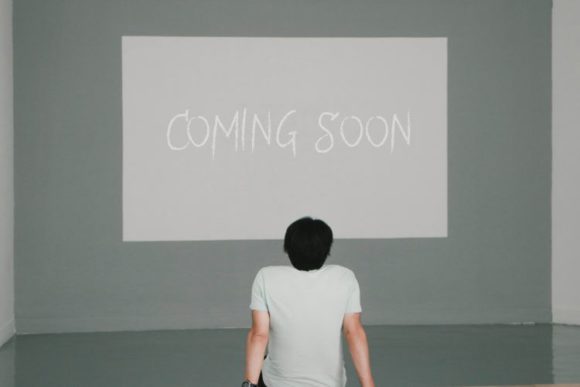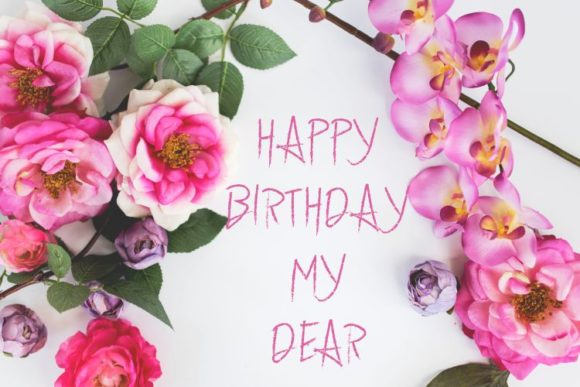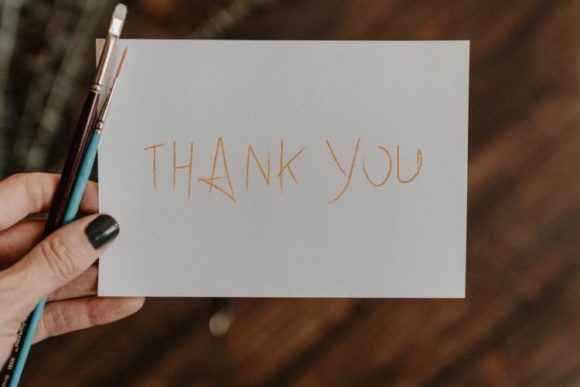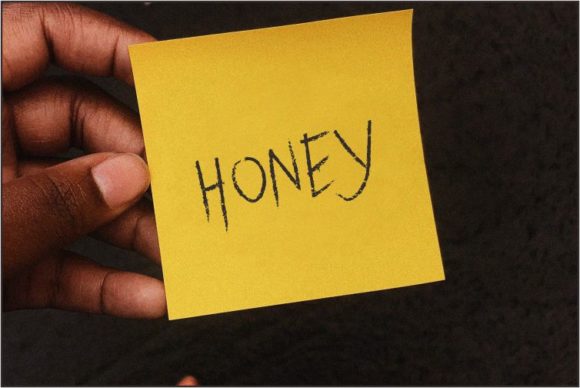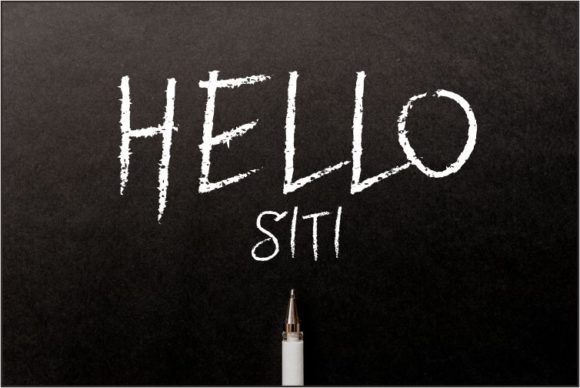
Evor Font: Unleash Your Creativity with a Fun and Authentic Display Font
Are you tired of using the same old fonts in your designs? Look no further than Evor Font, a fun and authentic display font with a rough edge that’s sure to add a unique charm to your projects. In this article, we’ll dive into the world of Evor Font and explore its features, benefits, and uses, inspiring you to get creative with this exciting new font.
The Story Behind Evor Font
Evor Font is a display font designed to stand out from the crowd. Its rough edge gives it a distinctive, handmade feel that’s perfect for designers and crafters looking to add a personal touch to their work. Whether you’re creating a logo, poster, or social media graphic, Evor Font is sure to make your design pop.
What Makes Evor Font Special?
So, what sets Evor Font apart from other fonts? Here are just a few of its unique features:
- Rough Edge: Evor Font’s rough edge gives it a organic, hand-crafted feel that’s perfect for designs that need a bit of texture and personality.
- Fun and Authentic: Evor Font is designed to be fun and playful, making it perfect for designs that need a bit of whimsy and charm.
- Display Font: Evor Font is a display font, meaning it’s designed to be used at larger font sizes, making it perfect for headlines, titles, and other attention-grabbing elements.
Uses for Evor Font
Evor Font is a versatile font that can be used in a variety of design projects, including:
- Logos: Evor Font’s unique charm makes it perfect for logos that need to stand out from the crowd.
- Posters: Evor Font’s bold, eye-catching design makes it perfect for posters and flyers.
- Social Media Graphics: Evor Font’s fun and playful design makes it perfect for social media graphics, such as Instagram posts and Facebook headers.
- Crafting: Evor Font’s handmade feel makes it perfect for crafters who want to add a personal touch to their projects.
Tips for Using Evor Font
Here are a few tips for getting the most out of Evor Font:
- Use it bold: Evor Font is designed to be used at larger font sizes, so don’t be afraid to use it bold and make a statement.
- Experiment with colors: Evor Font’s rough edge gives it a lot of texture, so experiment with different colors and textures to add depth and interest to your design.
- Pair it with other fonts: Evor Font is a great font to pair with other fonts, so experiment with different combinations to find the perfect look for your design.
Evor Font is a fun and authentic display font with a rough edge that’s sure to add a unique charm to your designs. With its bold, eye-catching design and versatile uses, Evor Font is perfect for designers and crafters looking to add a personal touch to their projects. So why not give Evor Font a try and see how it can inspire your creativity?
Get Inspired by Evor Font
Ready to unleash your creativity with Evor Font? Here are a few inspiring examples of what you can create with this exciting new font: